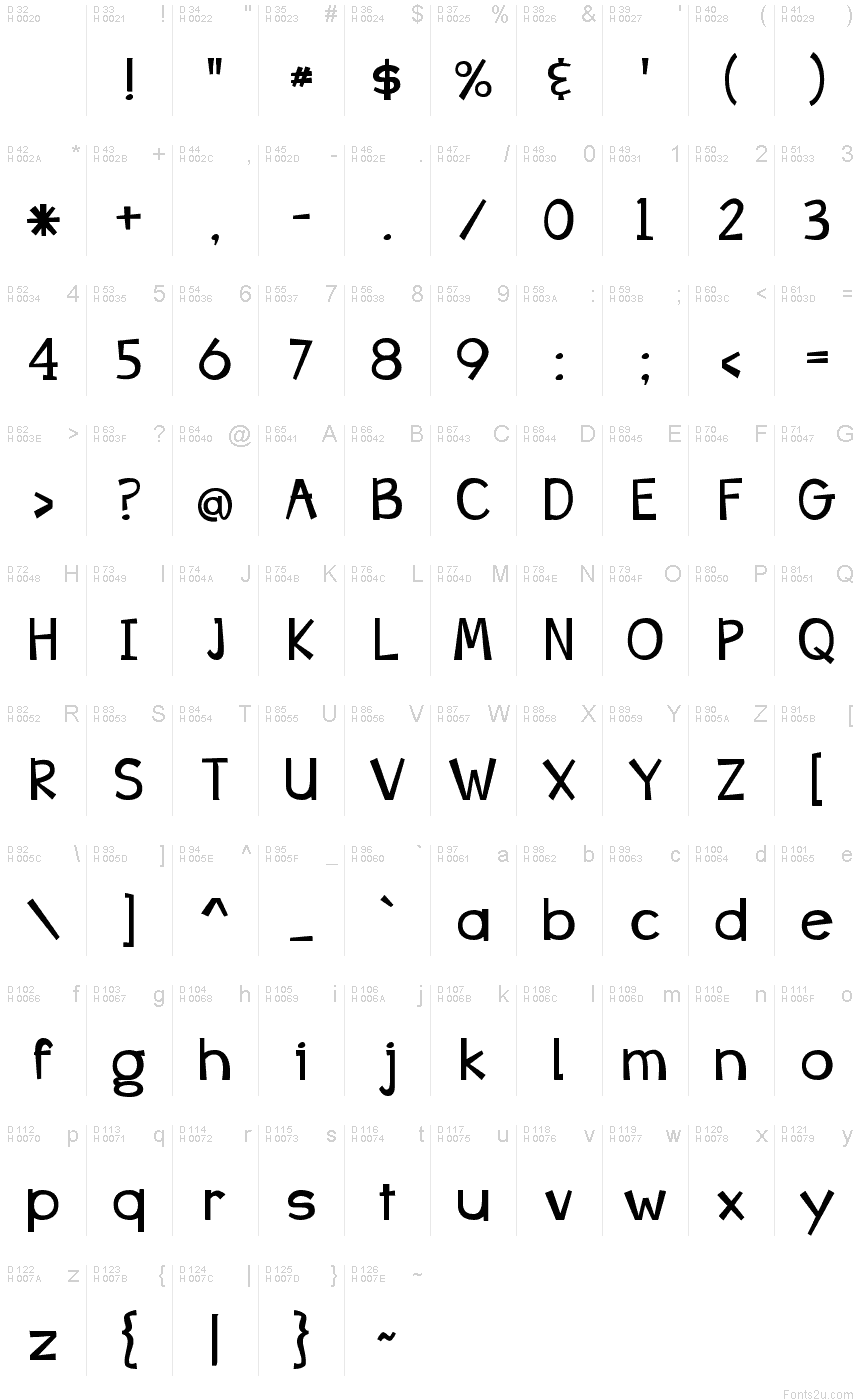
Bang Whack Pow, designed by Brittney Murphy, is a free comic display font with lanky, uneven letters and the snap of hand-drawn sound-effect lettering. Its changing stroke widths, tilted forms, and abrupt angles give each word a restless silhouette, with narrow characters rubbing against broad, rounded ones.
Comic-book action is the clearest reference, making the font apt for cover art, event posters, and children's publishing with a mischievous edge. It also suits snack packaging or music merchandise that favors scrappy, exaggerated typography over a polished house style. Around illustrated explosions, motion lines, or cartoon figures, the irregular letters can become part of the artwork rather than a separate caption.